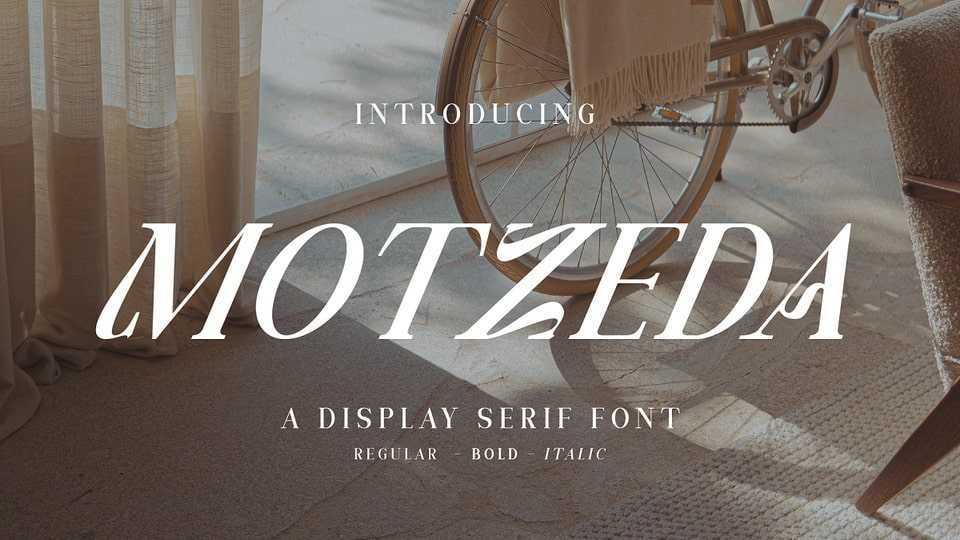
Download Motzeda font, an elegant display serif typeface With its cool, thick lettered and assertive look Motzeda font features the perfect amount of trendiness to make your designs come to life.